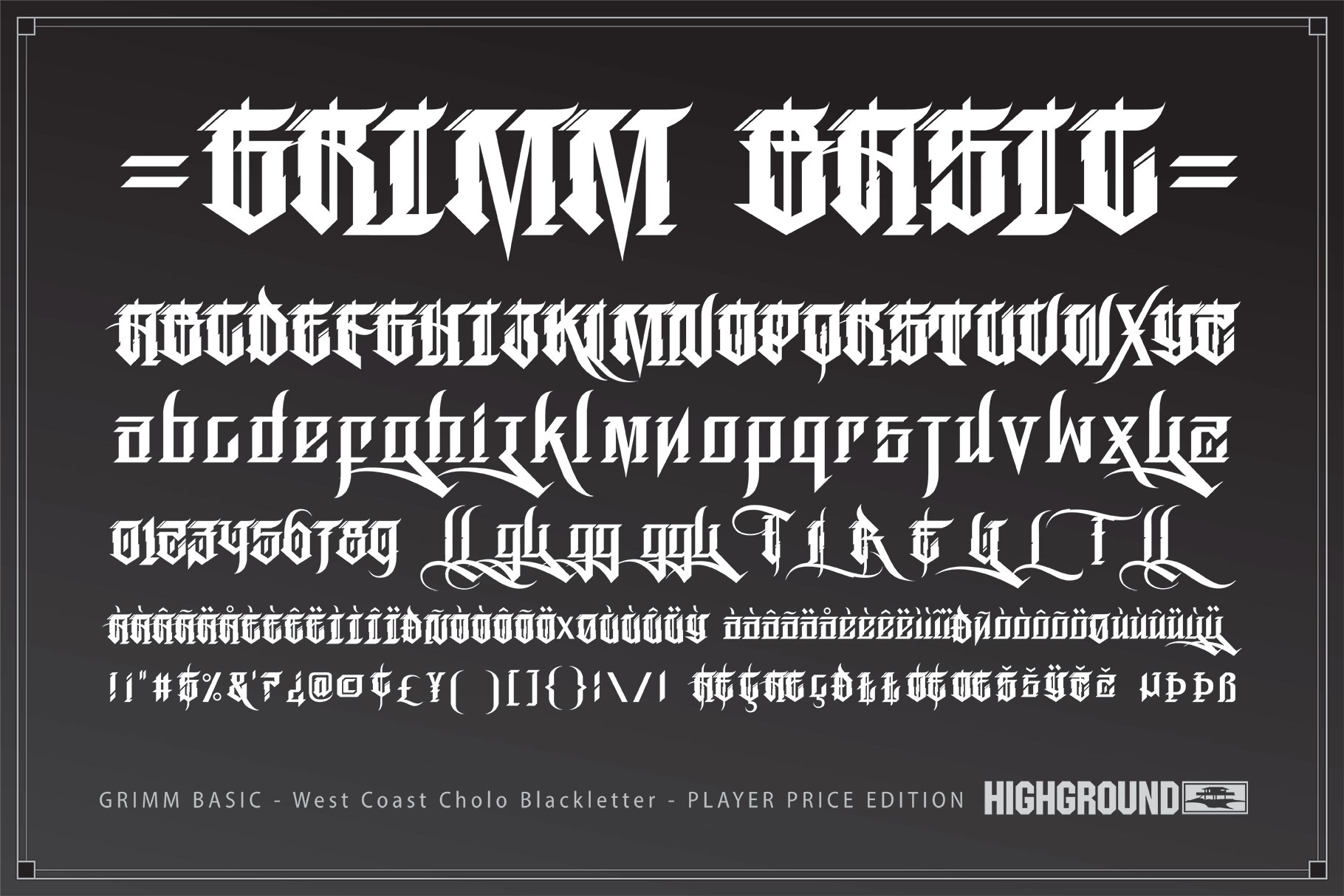
Rase Grimm Basic - Cholo Blackletter
This streamlined version of the Rase Grimm font is a hybrid style created using elements of the full 3-font family. This reduced version lacks the elaborate scripting of the full version but still includes a number of alternate characters, ligatures, numbers, punctuation, symbols, multilingual support and more.